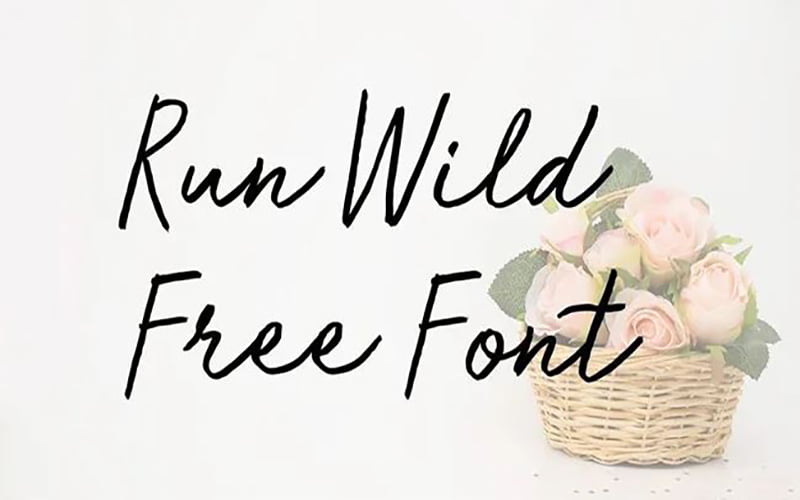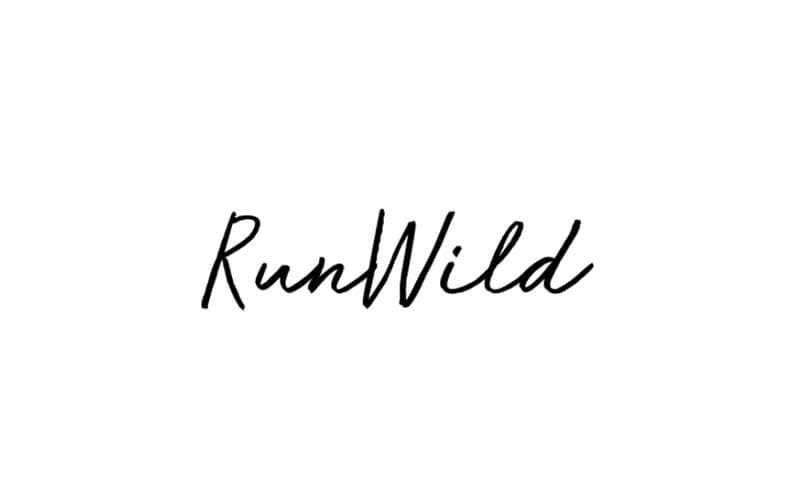
Run Wild Font is a beautiful handwritten script typeface that has a unique and amazing appearance. That comes from a great font designer BLKBK Fonts which provides a natural look for your message.
This display font family contains only one style. This single-style font consists of 232 characters. All letters and characters are manually crafted by the designer using a brush pen.
After releasing this typeface family, it was an incredible success at any time. Due to its gorgeous shape and touch, Run Wild Font is one of the best typefaces you have ever seen.
Run Wild Font
This elegant font family has a clean, attractive, and unique functional typeface according to its long tradition. Also, the designer has added a cursive tone to create the design even more amazing and cool.
Each font family structure retains its own smart features and design. This brush font is part of a premium product, so it is guaranteed to run with high quality. Wherever it is applied, it will surely add a significant touch to the design.